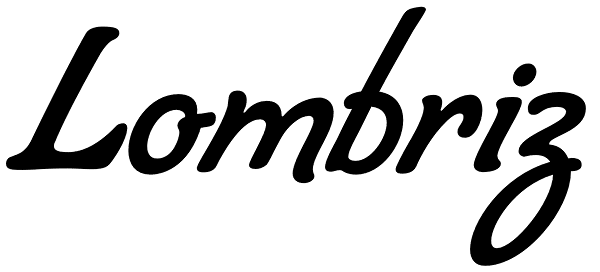
Lombriz
Lombriz attempts to bridge the gap between different kinds of typography - including packaging, signage, and sporting. The result is a heavy, yet casual, 1950s-inspired semi-connected script. The freestyle Lombriz feels friendlier, more readable...